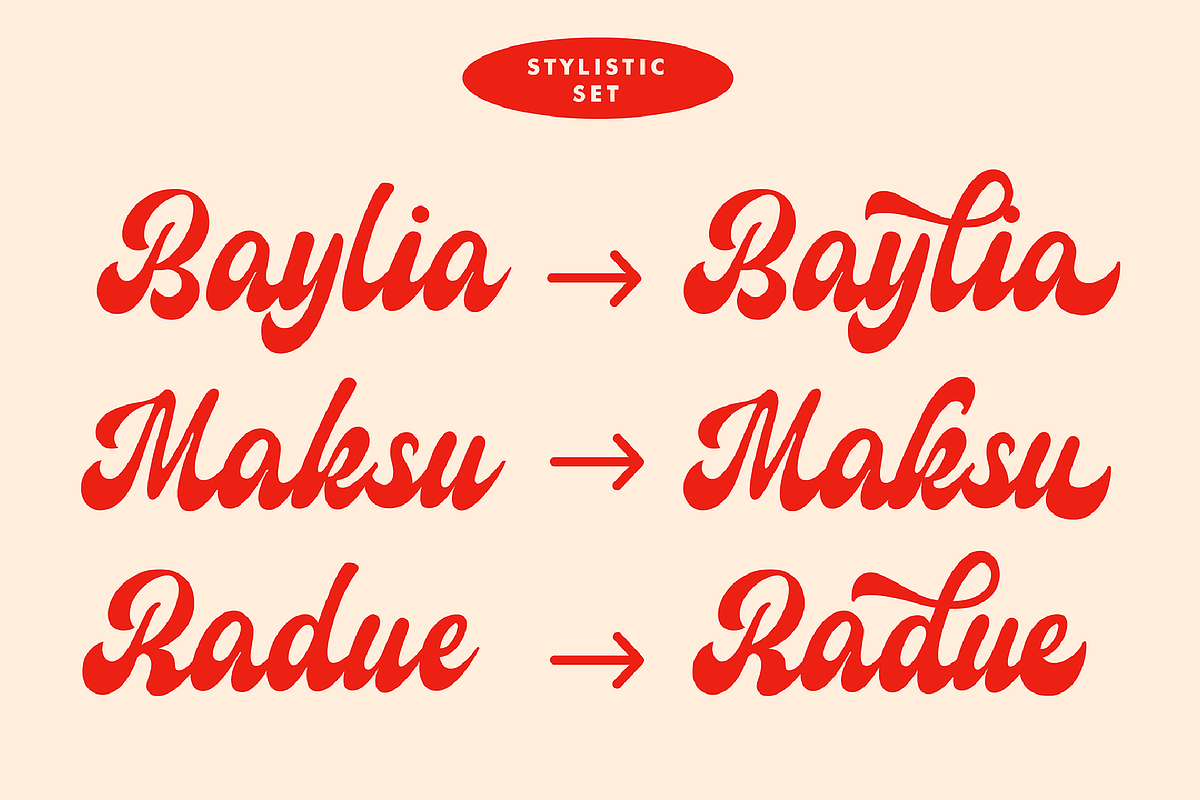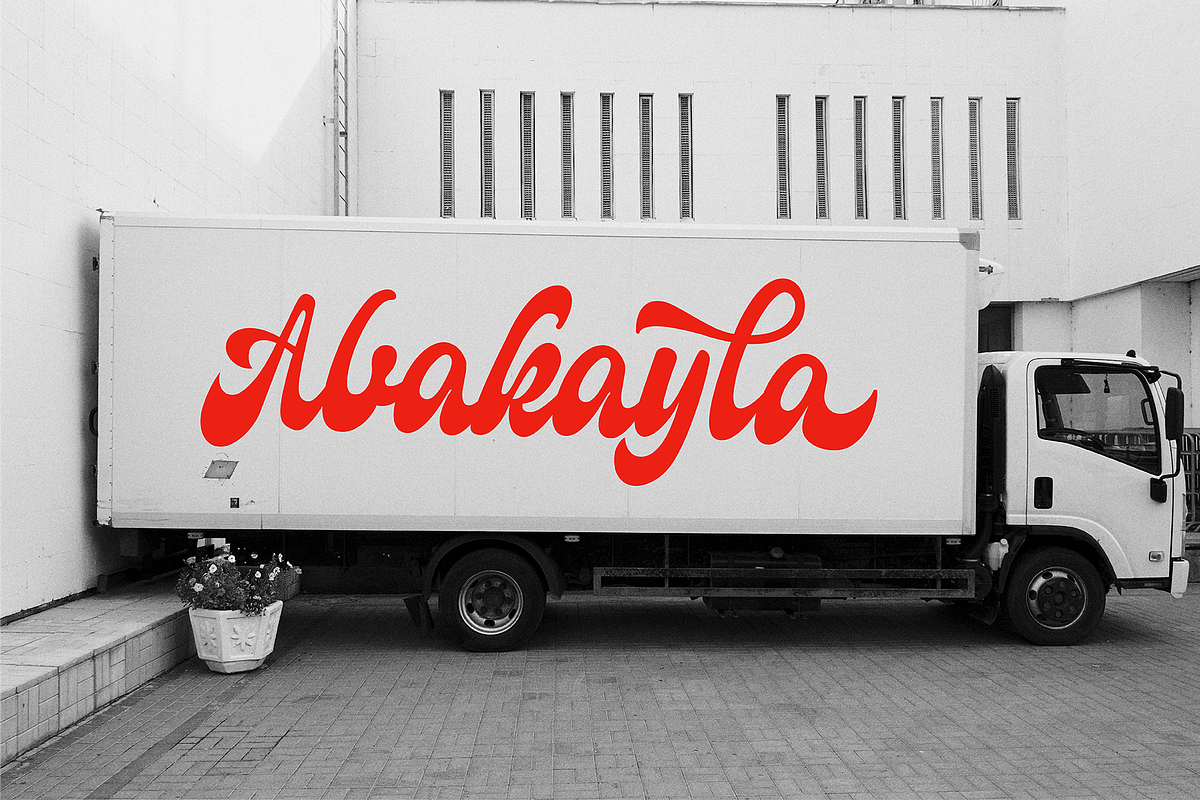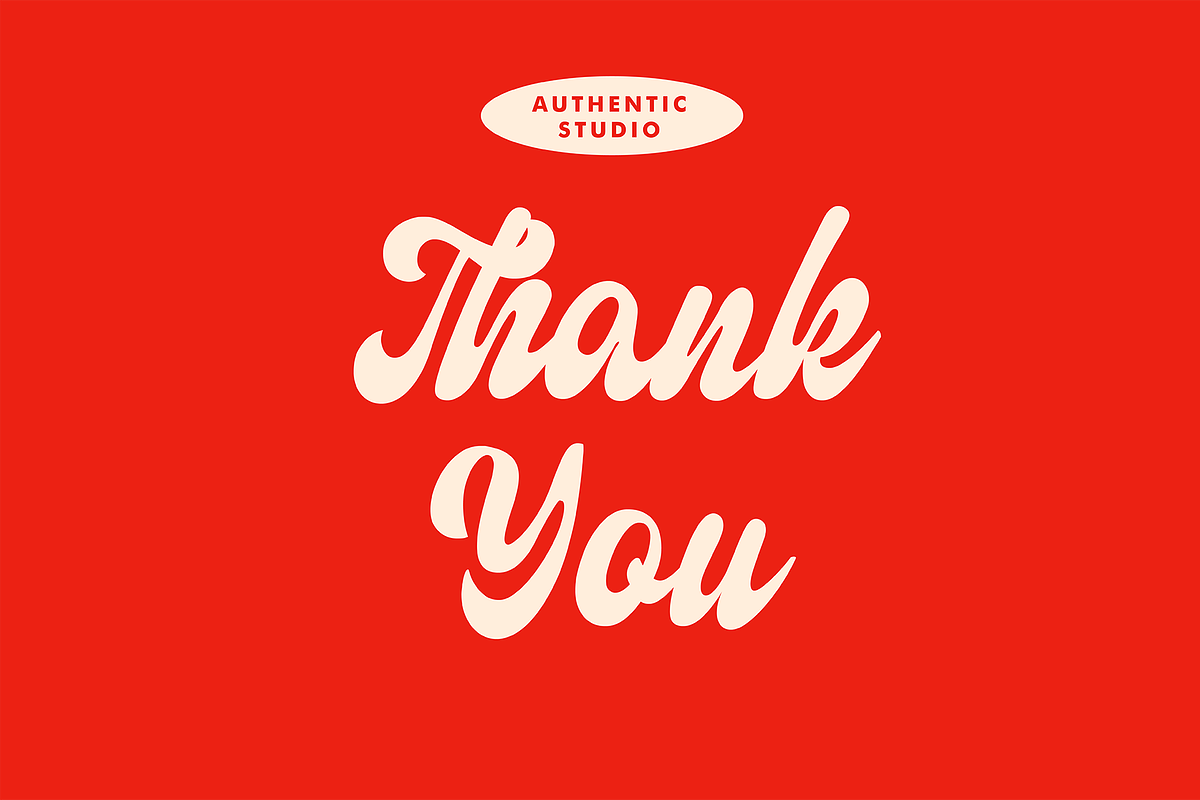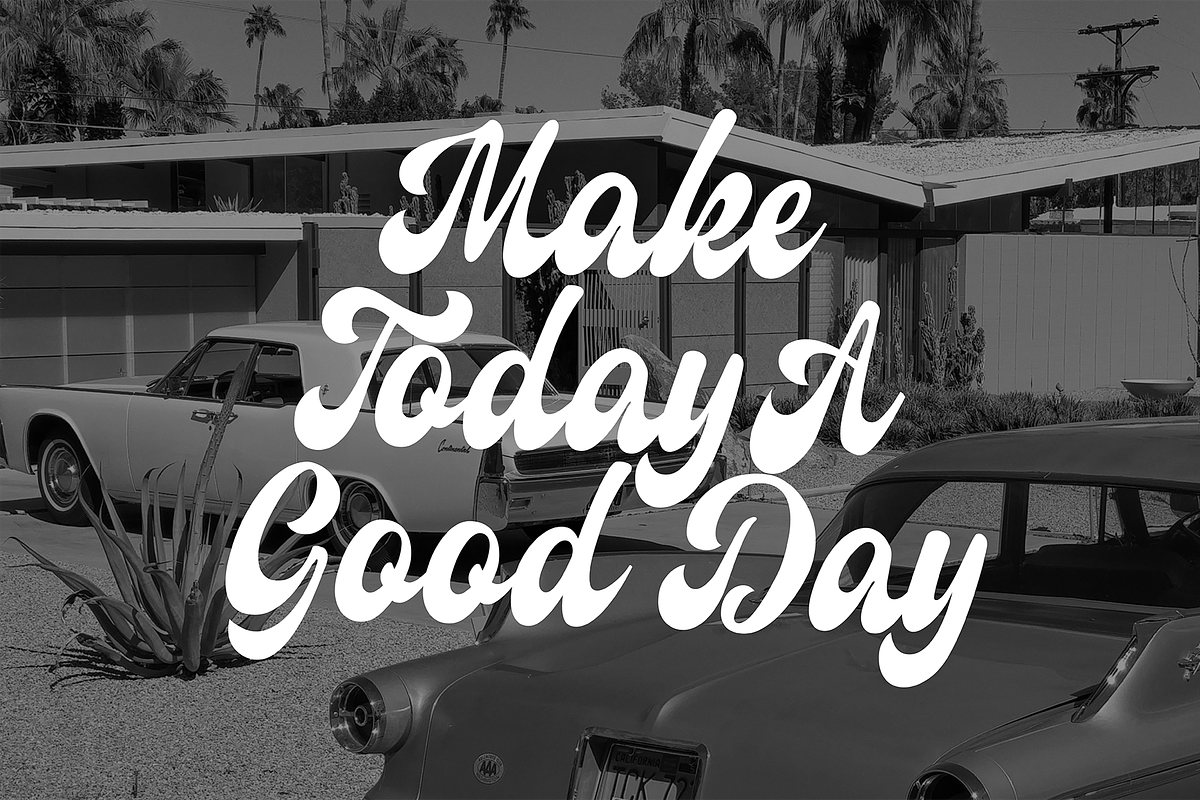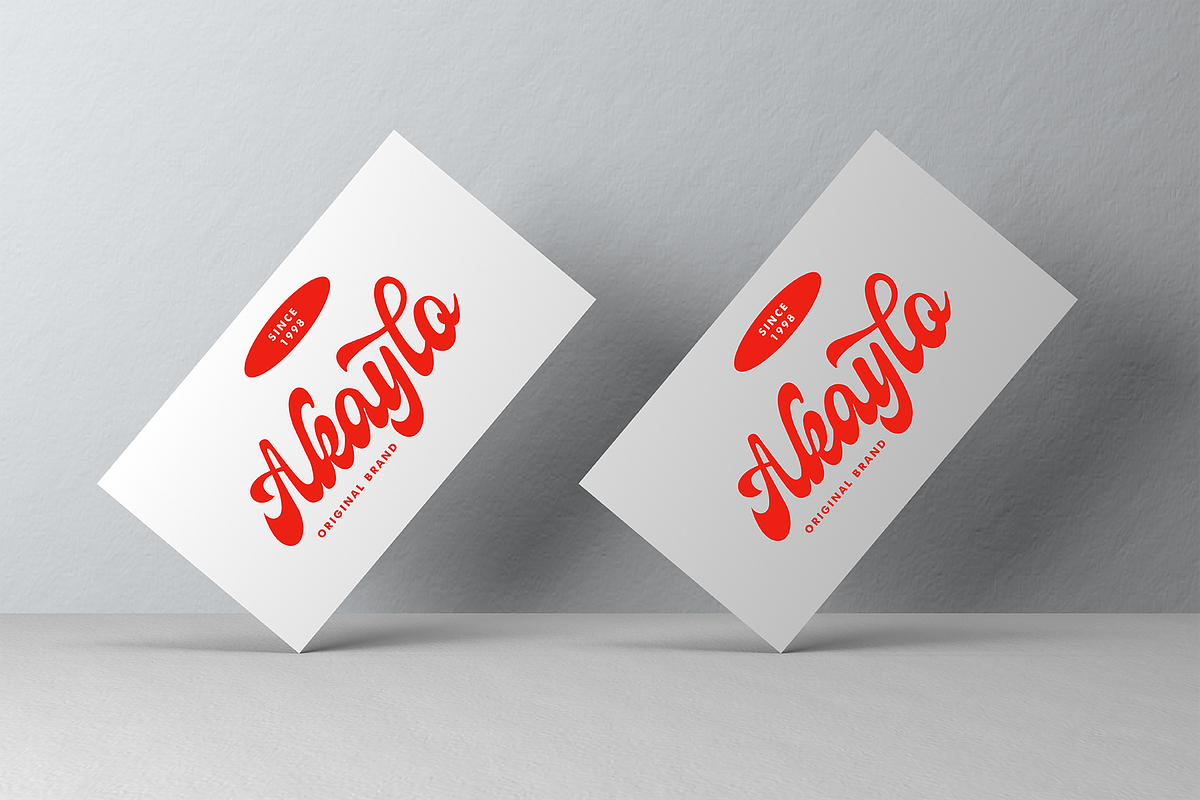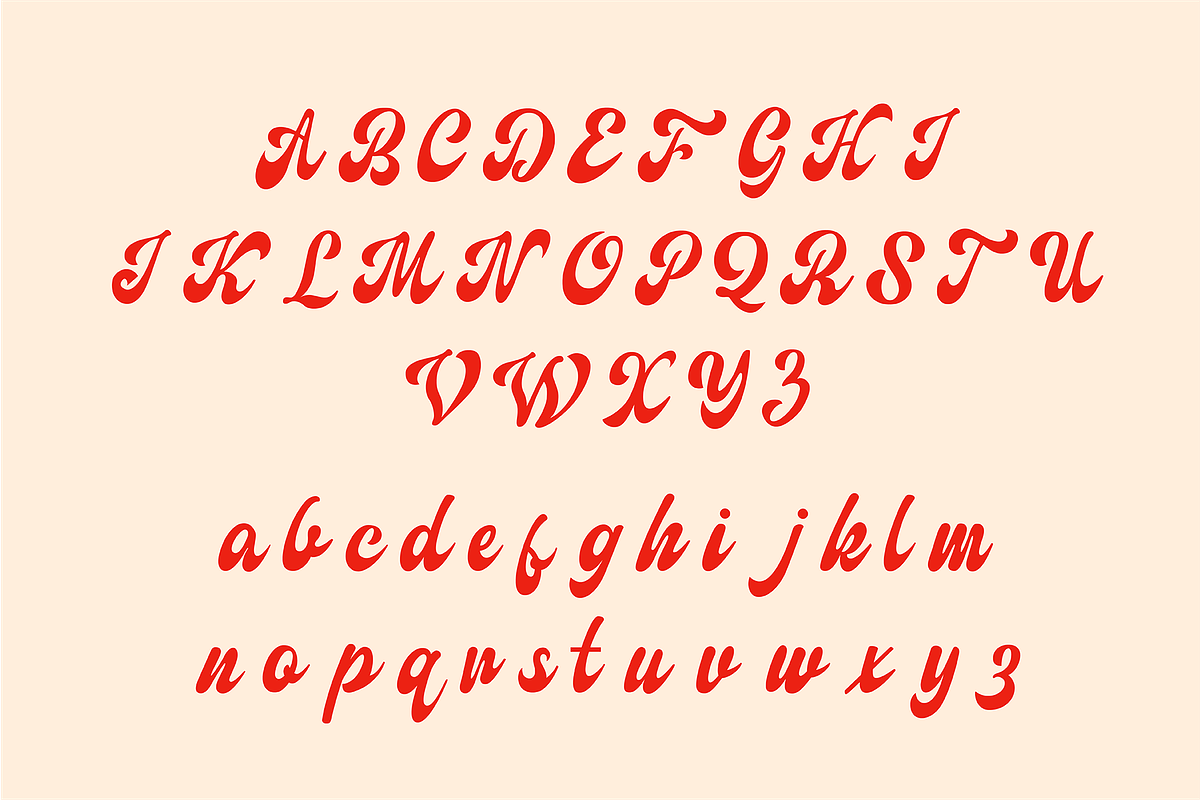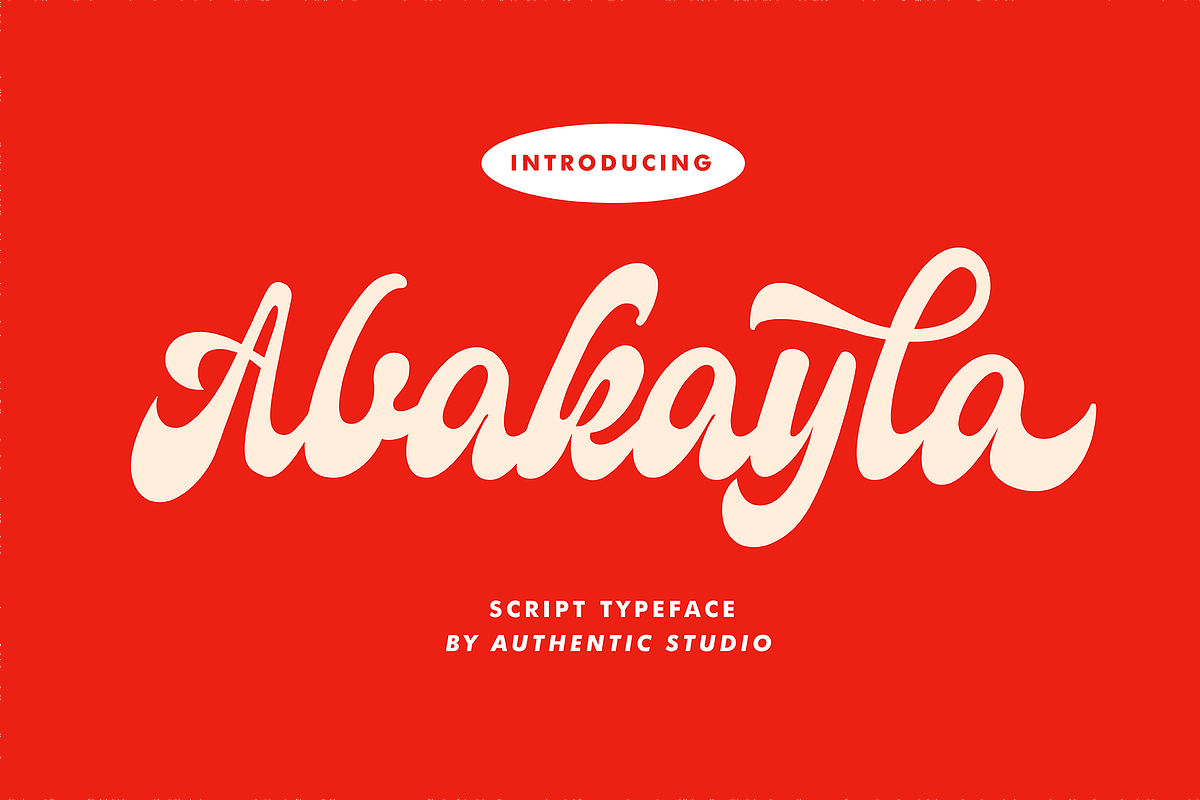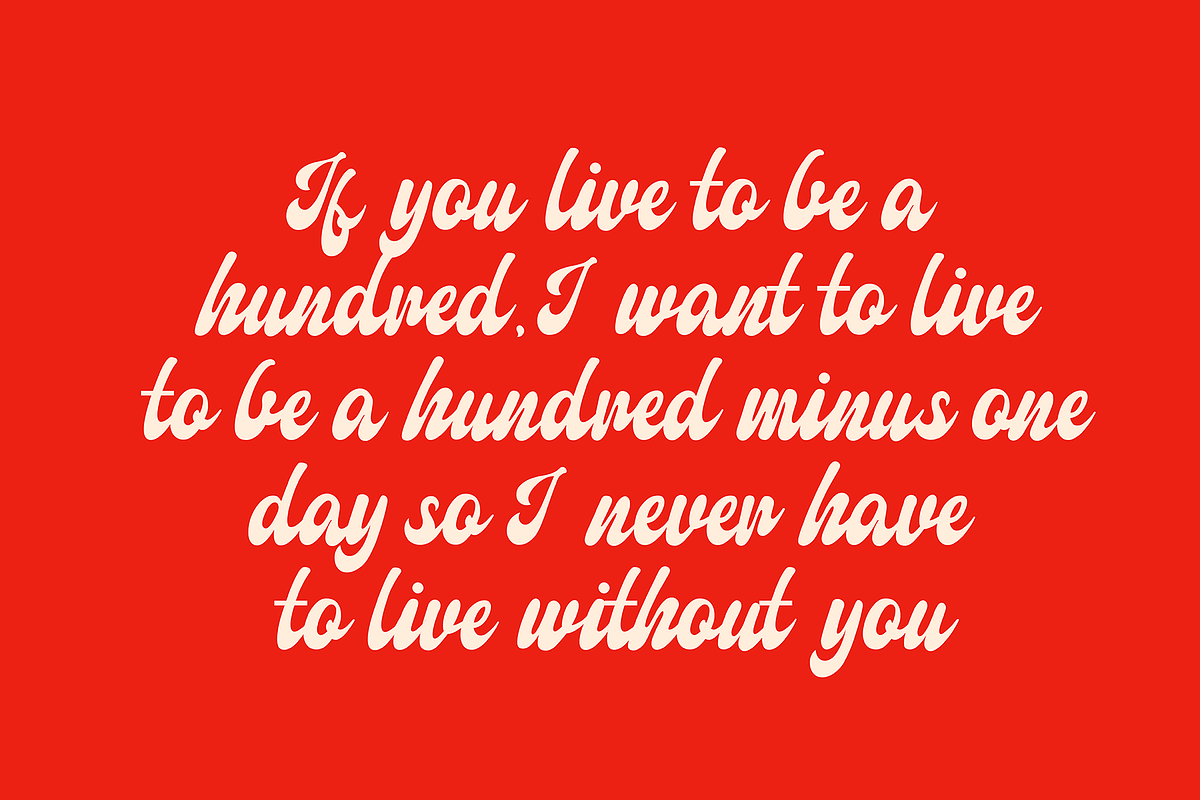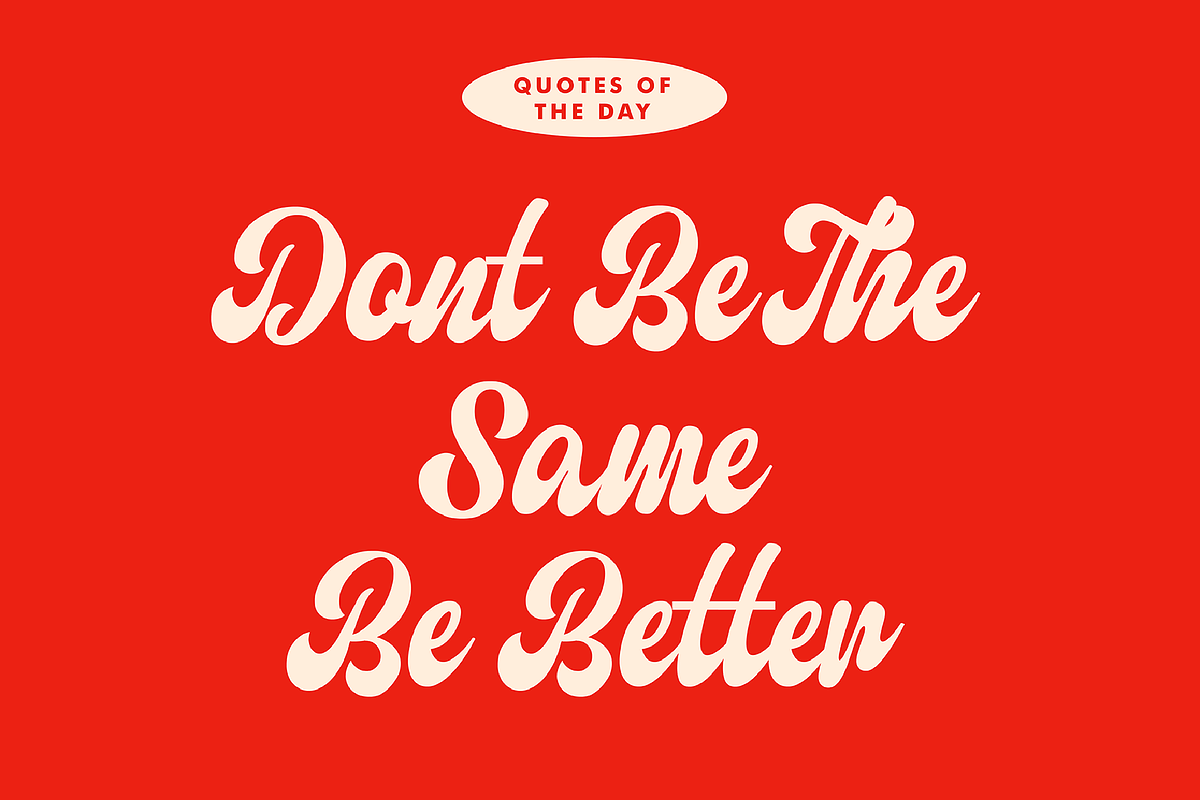
Abakayla Script
Hello ... Abakayla Script Font is a beautiful font which contains uppercase and lowercase letters and numbers . It’s perfectly suited to bold script, stationery, logo, branding, poster, social media, ad banner, wedding invitation, greeting card, etc.